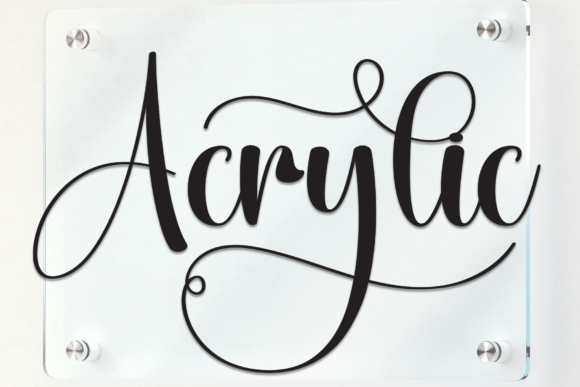
Acrylic Font: Elevate Your Designs with a Stylish Handwritten Script
Are you looking for a font that can add a personal touch to your designs? Look no further than Acrylic Font, a beautiful handwritten script font that exudes elegance and playfulness. With its smooth, flowing lines, Acrylic Font is perfect for creating logos, invitations, greeting cards, and any project that requires a unique and creative style.
What is Acrylic Font?
Acrylic Font is a stylish handwritten script font that is designed to make your designs stand out. Its natural and creative style makes it perfect for a wide range of projects, from logos and branding to invitations and greeting cards. The font features smooth, flowing lines that give it an elegant and playful feel, making it ideal for designers who want to add a personal touch to their work.
Key Features of Acrylic Font
- Smooth, flowing lines: Acrylic Font features smooth, flowing lines that give it a elegant and playful feel.
- Handwritten script style: The font has a natural, handwritten script style that makes it perfect for adding a personal touch to your designs.
- Elegant and playful: Acrylic Font is both elegant and playful, making it suitable for a wide range of projects.
- Perfect for logos and branding: The font is ideal for creating logos and branding materials that require a unique and creative style.
- Suitable for invitations and greeting cards: Acrylic Font is also perfect for creating invitations and greeting cards that require a personal touch.
Benefits of Using Acrylic Font
Using Acrylic Font in your designs can have numerous benefits. Here are a few:
- Unique and creative style: Acrylic Font adds a unique and creative style to your designs, making them stand out from the crowd.
- Personal touch: The font’s handwritten script style gives your designs a personal touch, making them more relatable and engaging.
- Elegant and sophisticated: Acrylic Font’s smooth, flowing lines give it an elegant and sophisticated feel, making it perfect for high-end designs.
- Versatile: The font is versatile and can be used for a wide range of projects, from logos and branding to invitations and greeting cards.
Inspiration with Acrylic Font
Acrylic Font is a versatile font that can be used in a wide range of design projects. Here are a few ideas to get you started:
- Logos and branding: Use Acrylic Font to create unique and creative logos and branding materials.
- Invitations and greeting cards: Add a personal touch to your invitations and greeting cards with Acrylic Font.
- Social media graphics: Use Acrylic Font to create eye-catching social media graphics that stand out.
- Packaging design: Add a touch of elegance and sophistication to your packaging design with Acrylic Font.
Acrylic Font is a beautiful handwritten script font that can elevate your designs to the next level. With its smooth, flowing lines and elegant and playful style, it’s perfect for creating logos, invitations, greeting cards, and any project that requires a unique and creative style. Whether you’re a designer or a DIY enthusiast, Acrylic Font is a great addition to your font library.